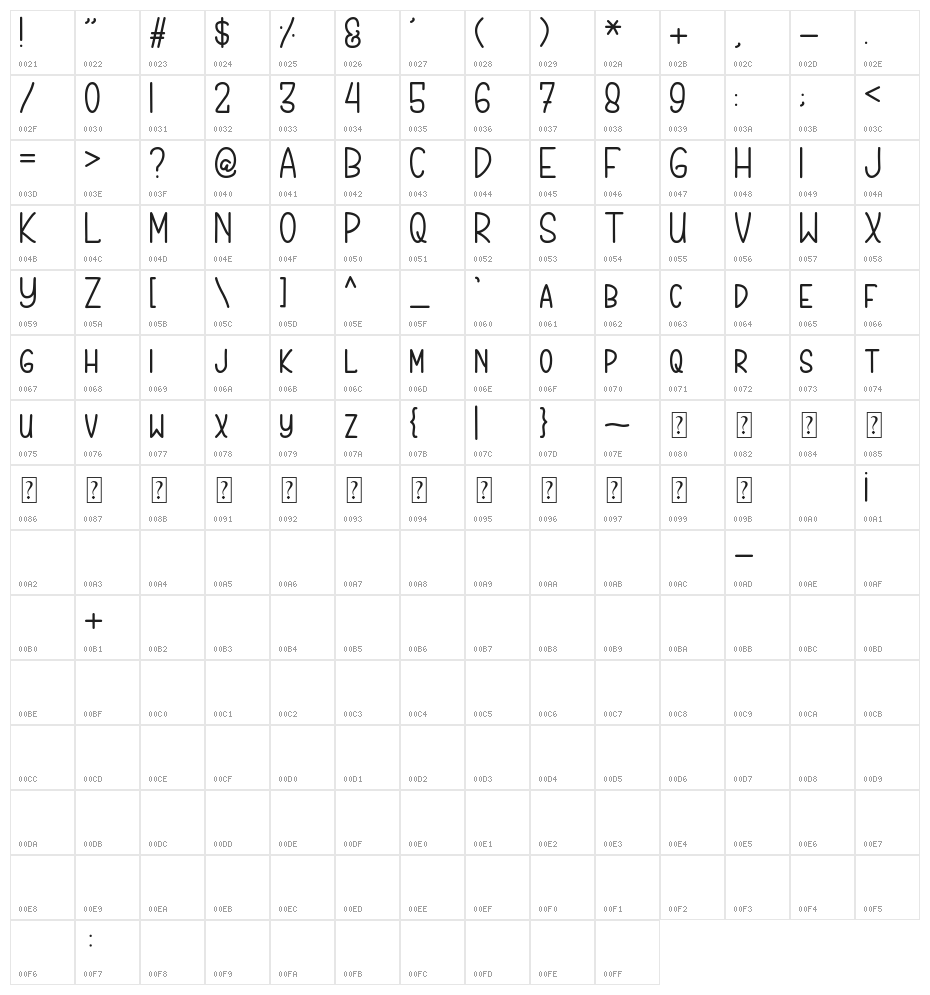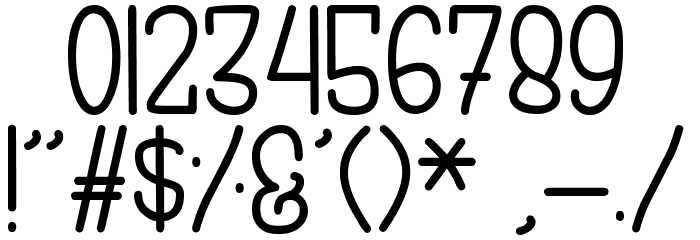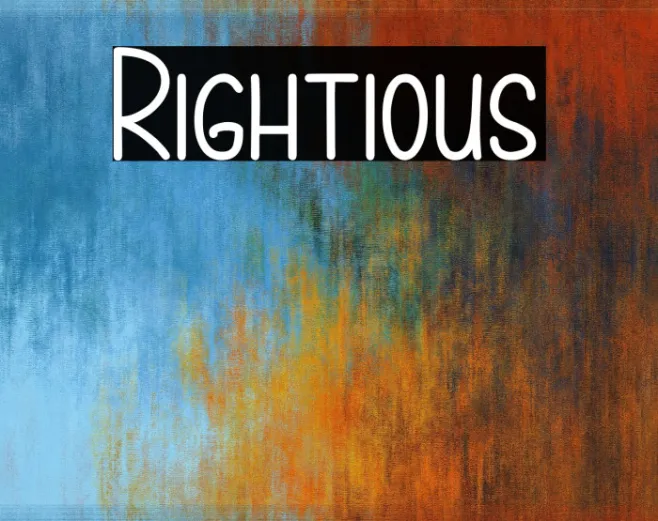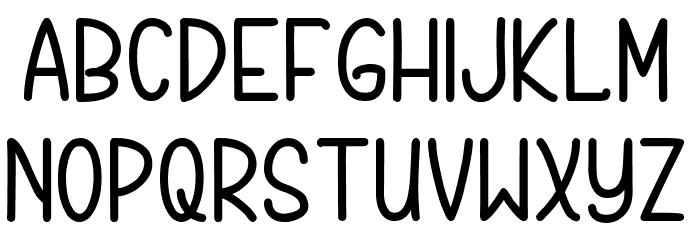
Rightious Font
Rightious Description
This font features a playful and casual handwritten style, characterized by its rounded and smooth letterforms. The uppercase and lowercase letters maintain a consistent flow, with slightly exaggerated curves that add a whimsical touch. The numerals are equally rounded, providing a cohesive look across all characters. Special characters are designed with the same playful aesthetic, making them blend seamlessly with the letters and numbers. The overall appearance is friendly and approachable, suitable for projects that require a personal or informal tone.
| Proposed Projects | Ideal for children's books, greeting cards, informal invitations, and playful branding projects. |